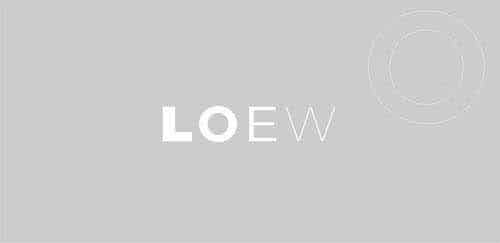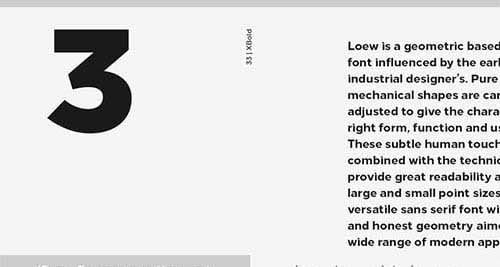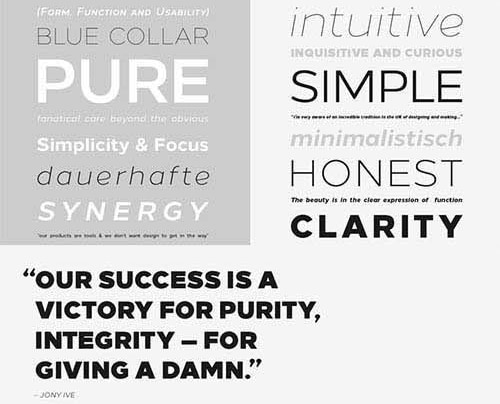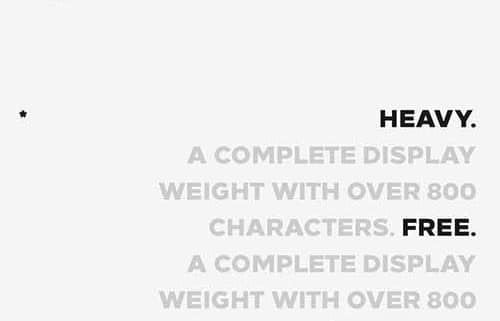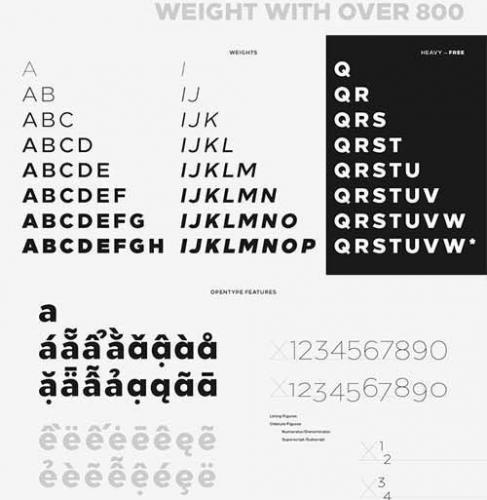
Loew Font Family
Loew is a geometric sans serif font influenced by the methods of the early industrial designers. Pure mechanical shapes are carefully adjusted to give the characters the right form, function and usability. These subtle human touches combined with the technical detail provide great readability at both large and small point sizes.
Loew is a versatile sans serif font with simple and honest geometry aimed at a wide range of modern applications. Details include over 800 characters with alternative lowercase a, e and g. Seven variations of numerals, true small caps with accents, manually edited kerning and Opentype features. For additional non-latin language support in Cyrillic, Greek and Arabic, visit Loew Next and Loew Next Arabic.